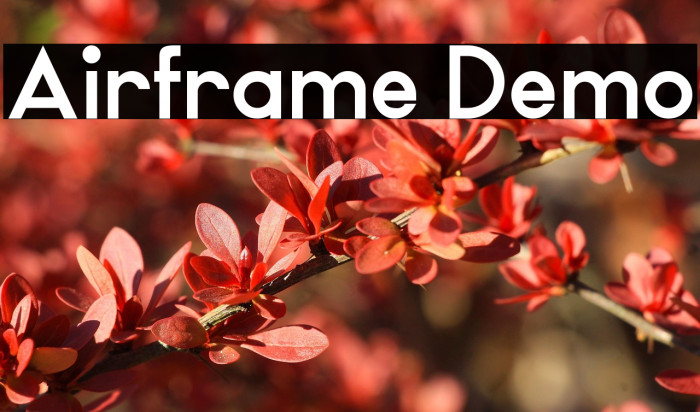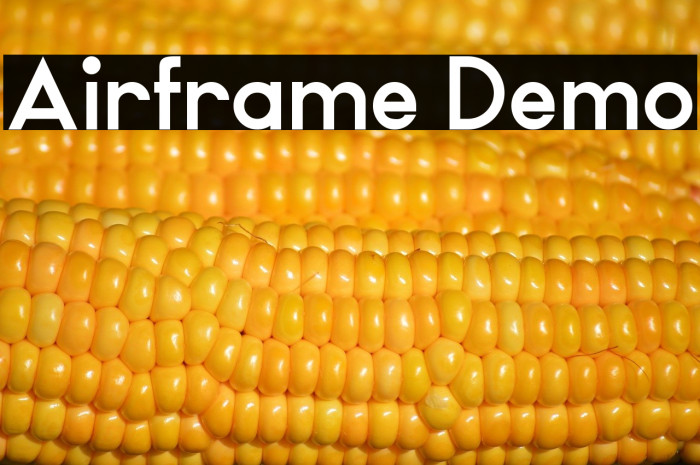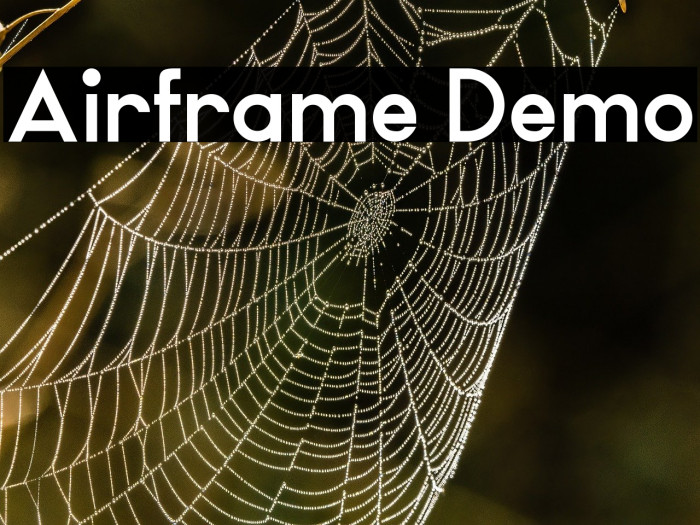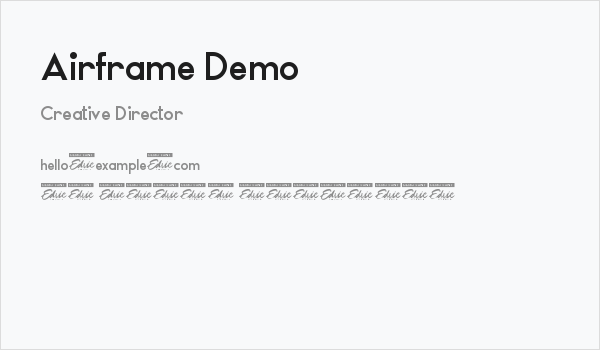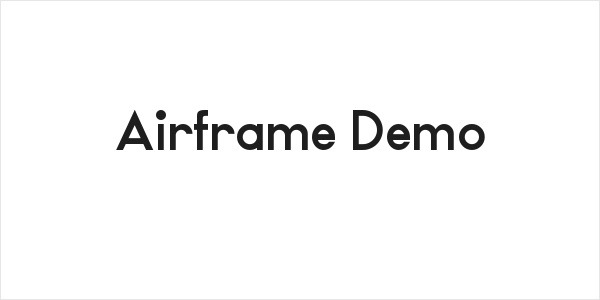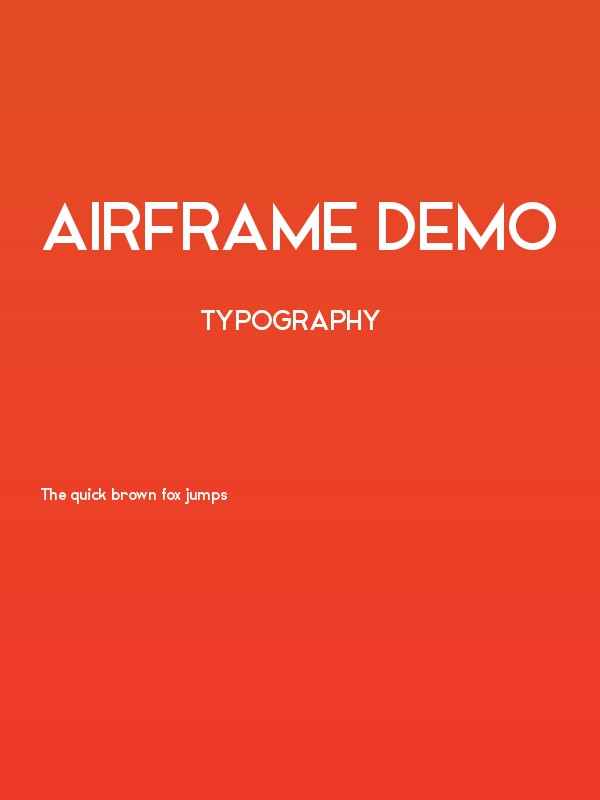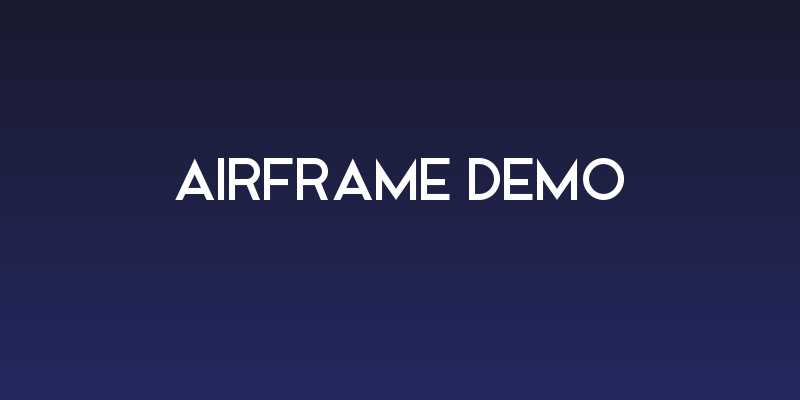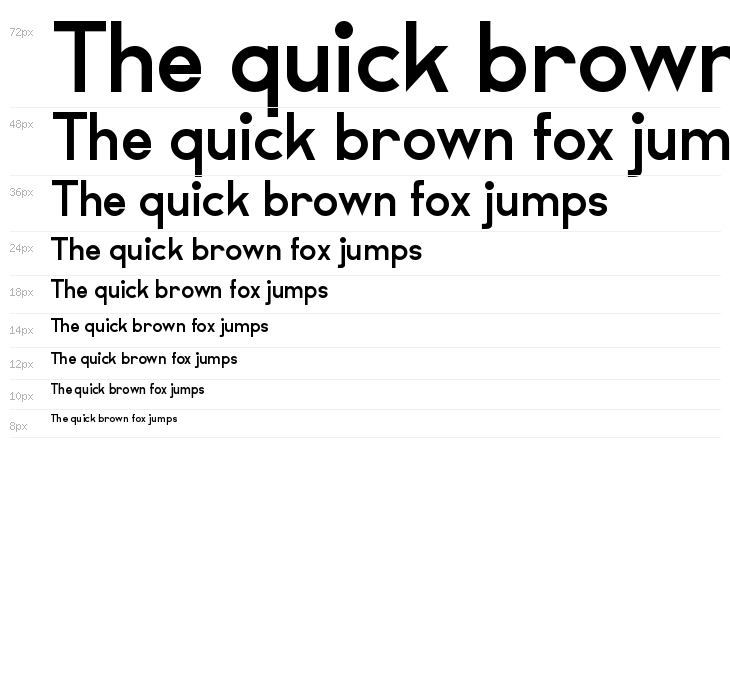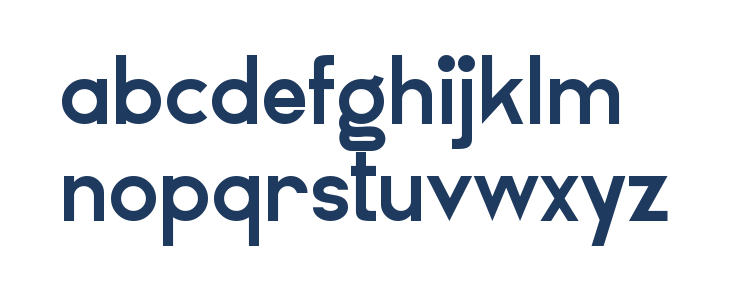
Airframe Demo Font
Airframe Demo Description
This font features a clean and modern sans-serif style with a geometric influence. The uppercase letters are bold and assertive, while the lowercase letters maintain a consistent weight, offering a harmonious balance. The characters are well-spaced, providing excellent readability. The font's simplicity and clarity make it versatile for various design applications. Its uniform stroke width and lack of serifs give it a contemporary feel, suitable for both digital and print media.
| Proposed Projects | Ideal for branding, web design, advertising, and editorial layouts. |